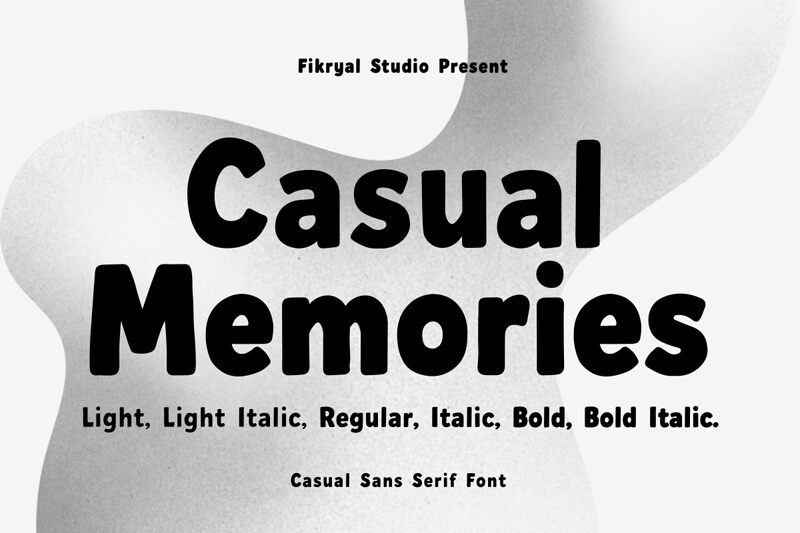
Casual Memories Light
Casual Memories сімейство містить 6 шрифти
Casual Memories Light font by Fikryal studio is a free comic display typeface that captures the feel of quick marker lettering without looking messy. The strokes are soft and rounded, like ink that’s just dried on slightly textured paper, giving headlines an easygoing, handwritten warmth. Its light weight keeps things airy and relaxed, so text feels friendly and approachable rather than loud or shouty.
Using Casual Memories Light, you can add personality to kids’ book covers, playful posters, classroom materials, social media graphics, casual branding, and greeting cards. The even spacing and clear shapes keep it readable at medium to large sizes, where its charm really shows. This free font pairs nicely with a clean sans serif for body text—set Casual Memories for titles and the sans underneath to keep layouts fun but organized.